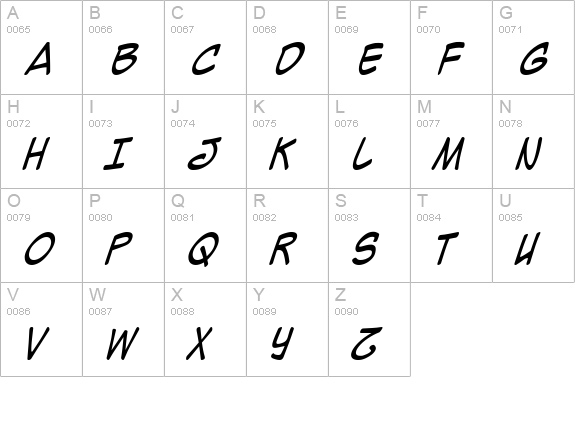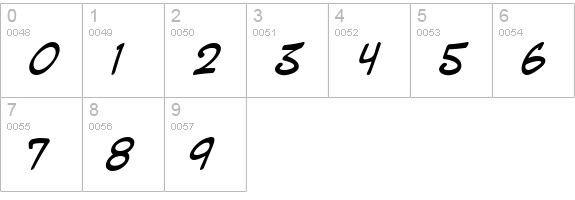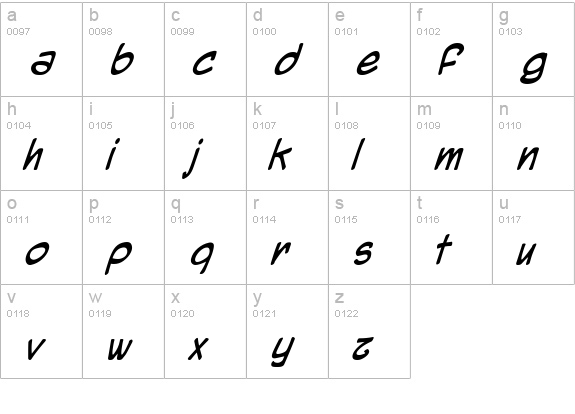
Mighty Zeo 2.0 Italic is a distinctive, italic variant in the Mighty typeface family \xE2\x80\x94 well suited to design and typography projects.
Introducing the captivating and powerful Mighty Zeo 2.0 Italic font - a versatile typeface that exudes strength and modernity. With its bold yet elegant design, this font is sure to make a statement in any project it is used in. Whether for branding, headlines, or graphic design, Mighty Zeo 2.0 Italic font stands out with its unique flair and sophistication. Best of all, this impressive font is available for free download at FontsMarket.com. Don't miss the opportunity to enhance your designs with the Mighty Zeo 2.0 Italic font - a must-have addition to any designer's toolkit. Download it today and elevate your projects with its bold and stylish presence.